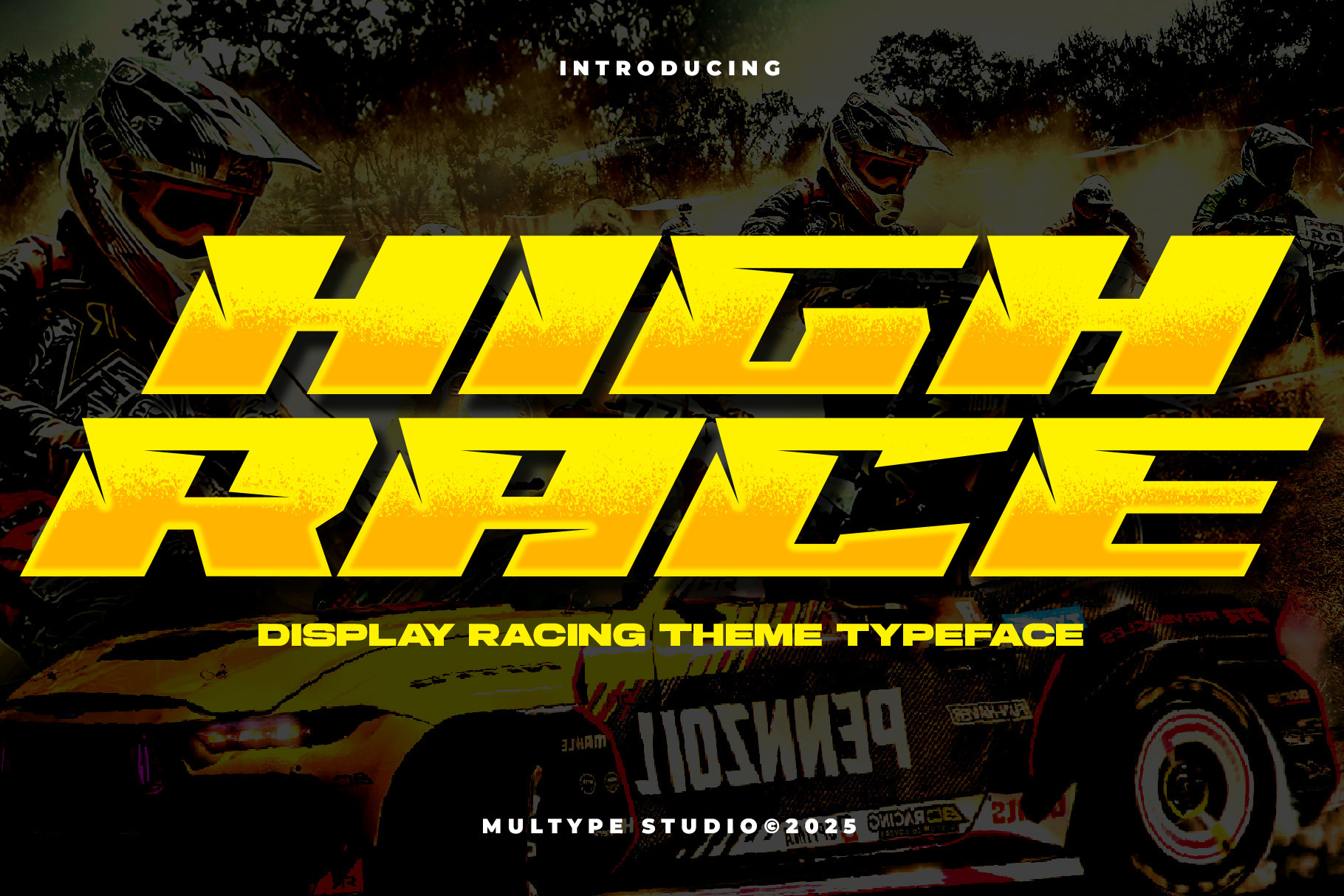
Highrace Racing Font
Highrace Racing is a bold and dynamic display font inspired by the world of motorsport and high-speed design. With its sharp edges, slanted cuts, and powerful geometry, this typeface captures the energy and motion of racing culture. Perfect for sports branding, racing posters, automotive logos, and action-themed typography, Highrace Racing brings adrenaline and excitement to every project.
Make your designs look fast, fierce, and professional with Highrace Racing Font — the ultimate racing display typeface for bold creatives.
- All Caps